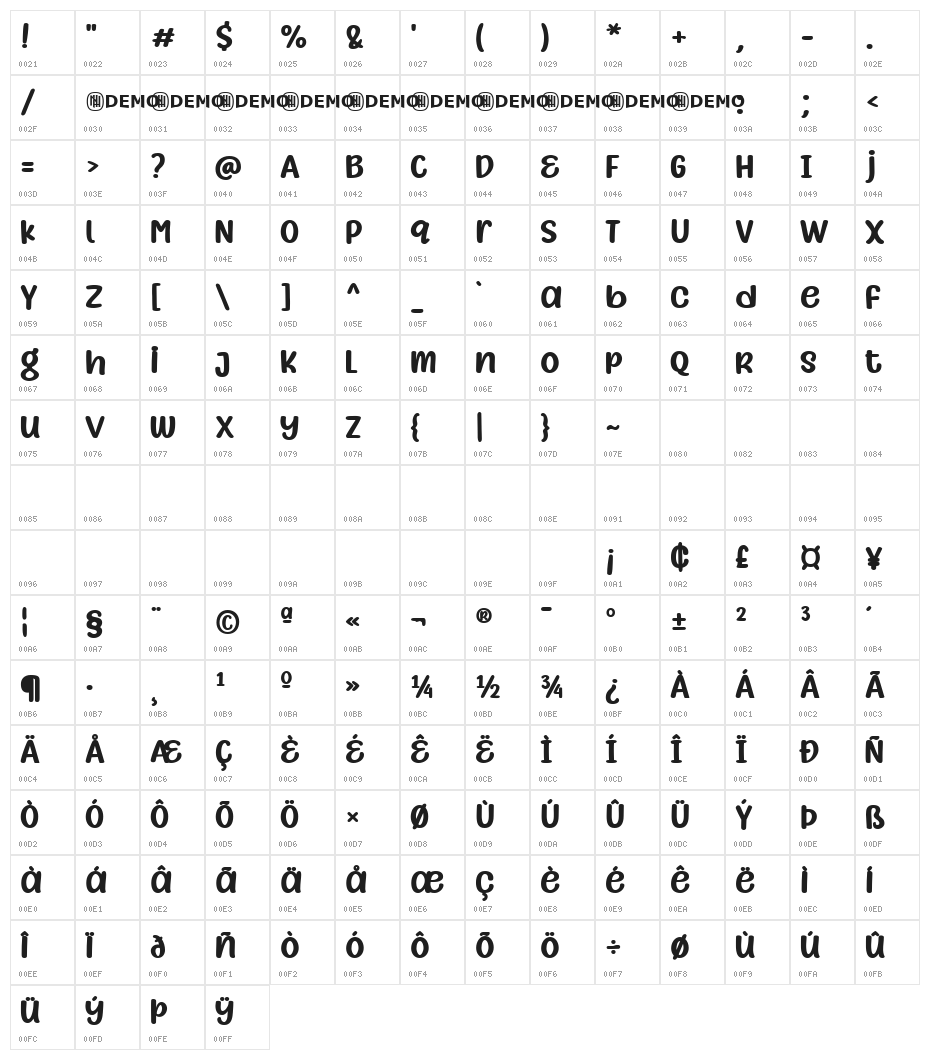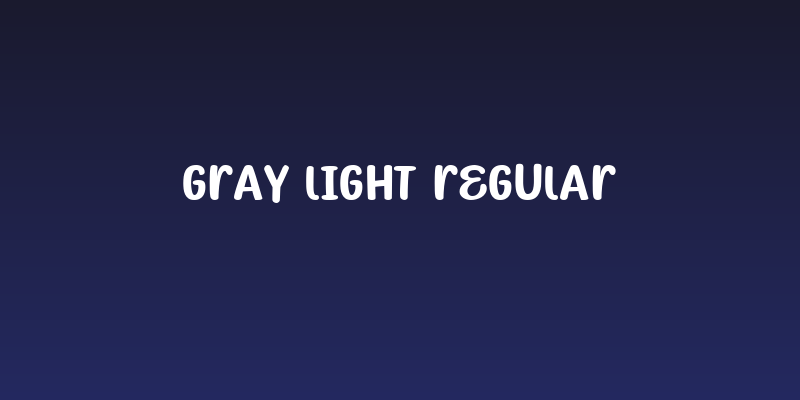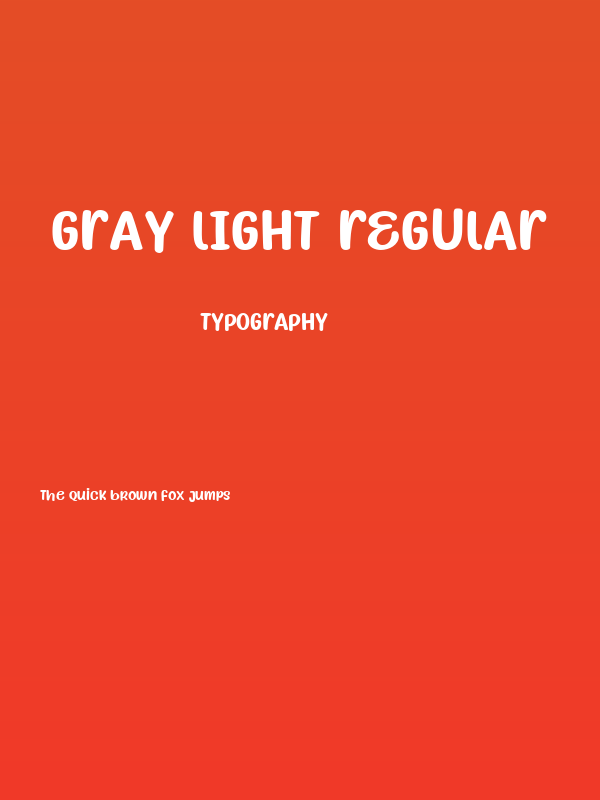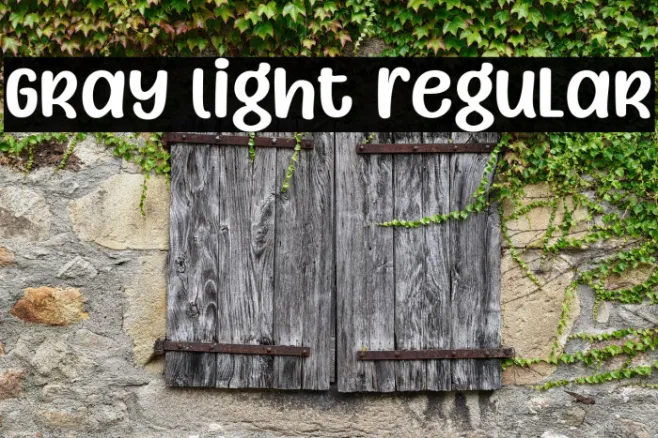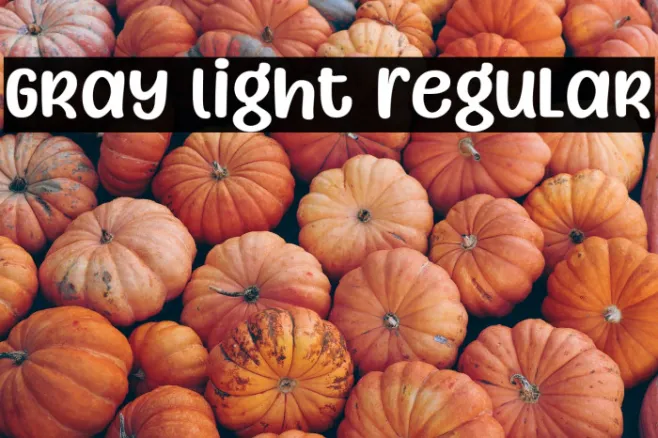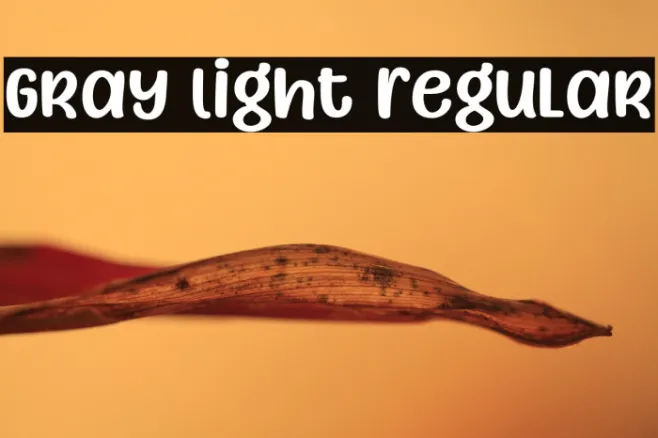
Gray Light Regular Font
Gray Light Regular Description
This font features a playful and rounded style, characterized by its bold and smooth curves. The letters have a consistent thickness, giving them a friendly and approachable appearance. The uppercase and lowercase letters maintain a uniform height, contributing to a cohesive look. The numerals and special characters follow the same design principles, ensuring readability and visual harmony. This font's unique style makes it suitable for projects that require a touch of whimsy and creativity.
| Proposed Projects | Ideal for children's books, playful branding, greeting cards, and creative posters. |